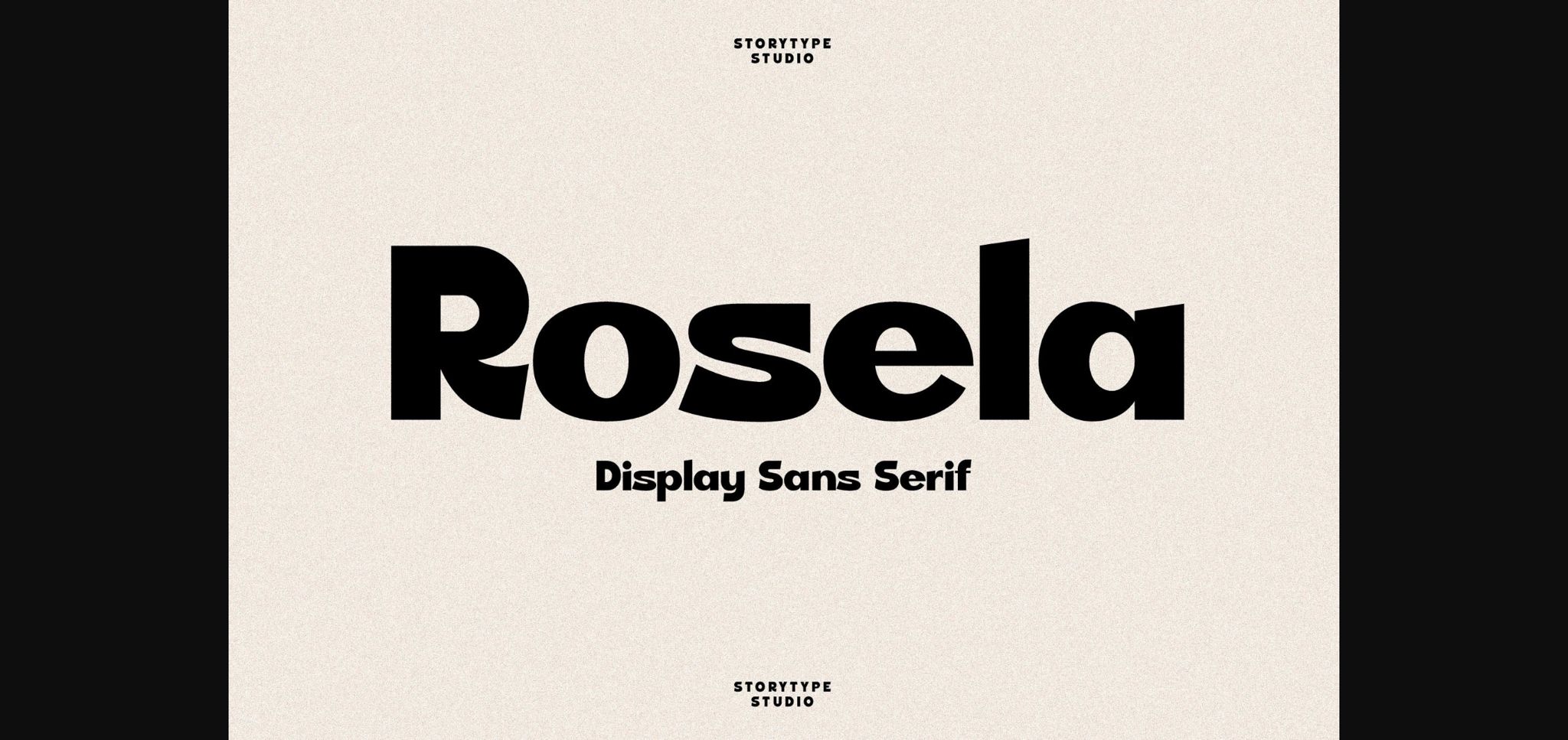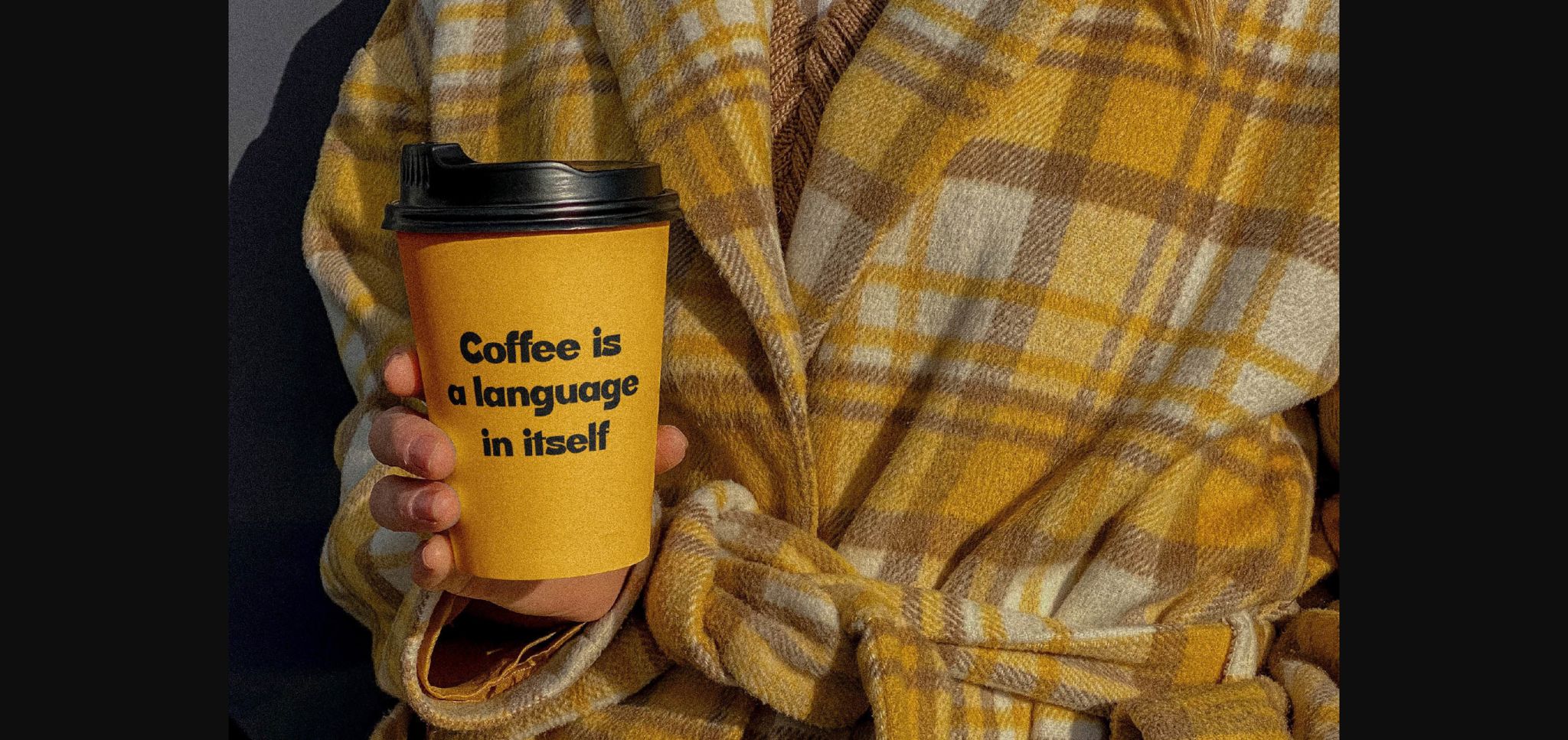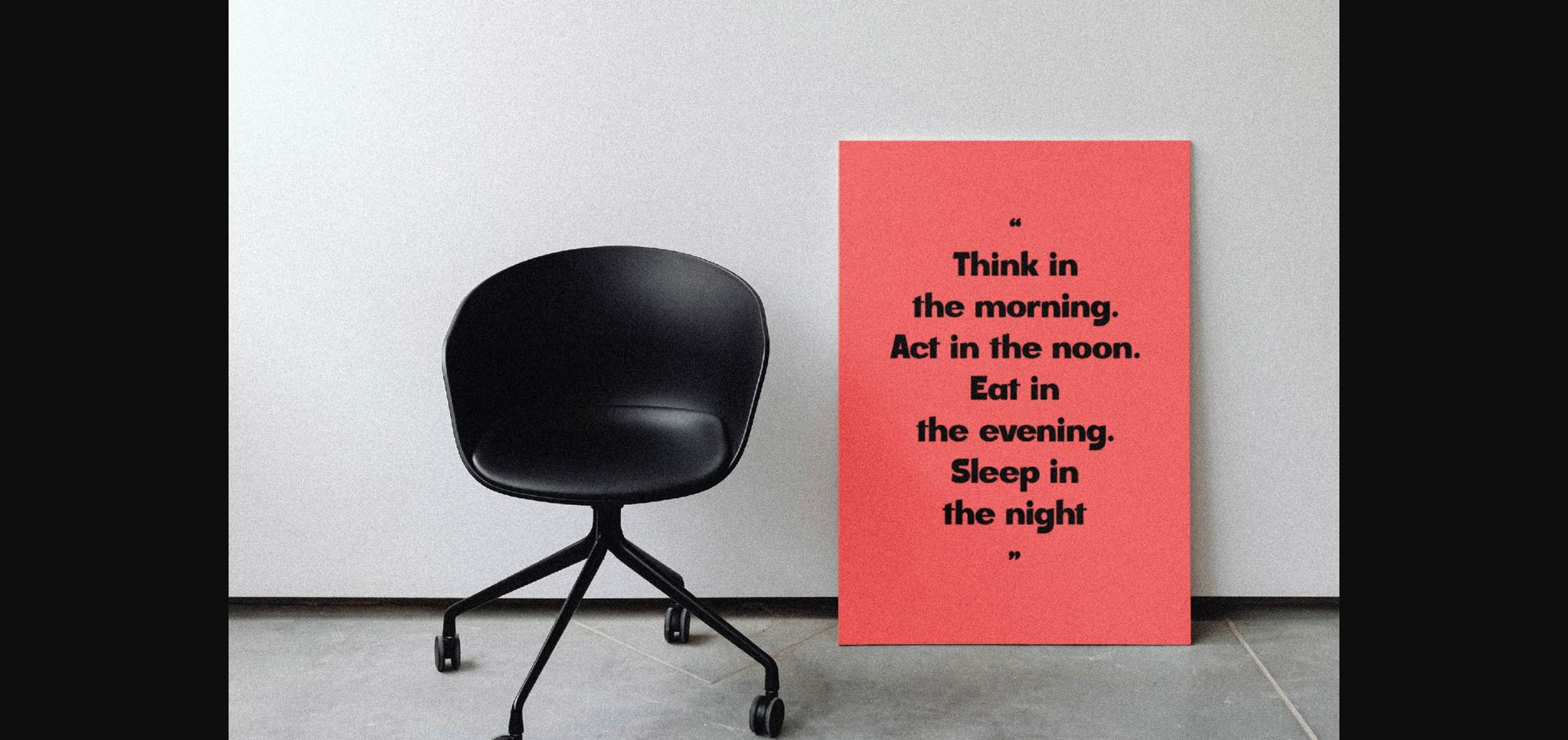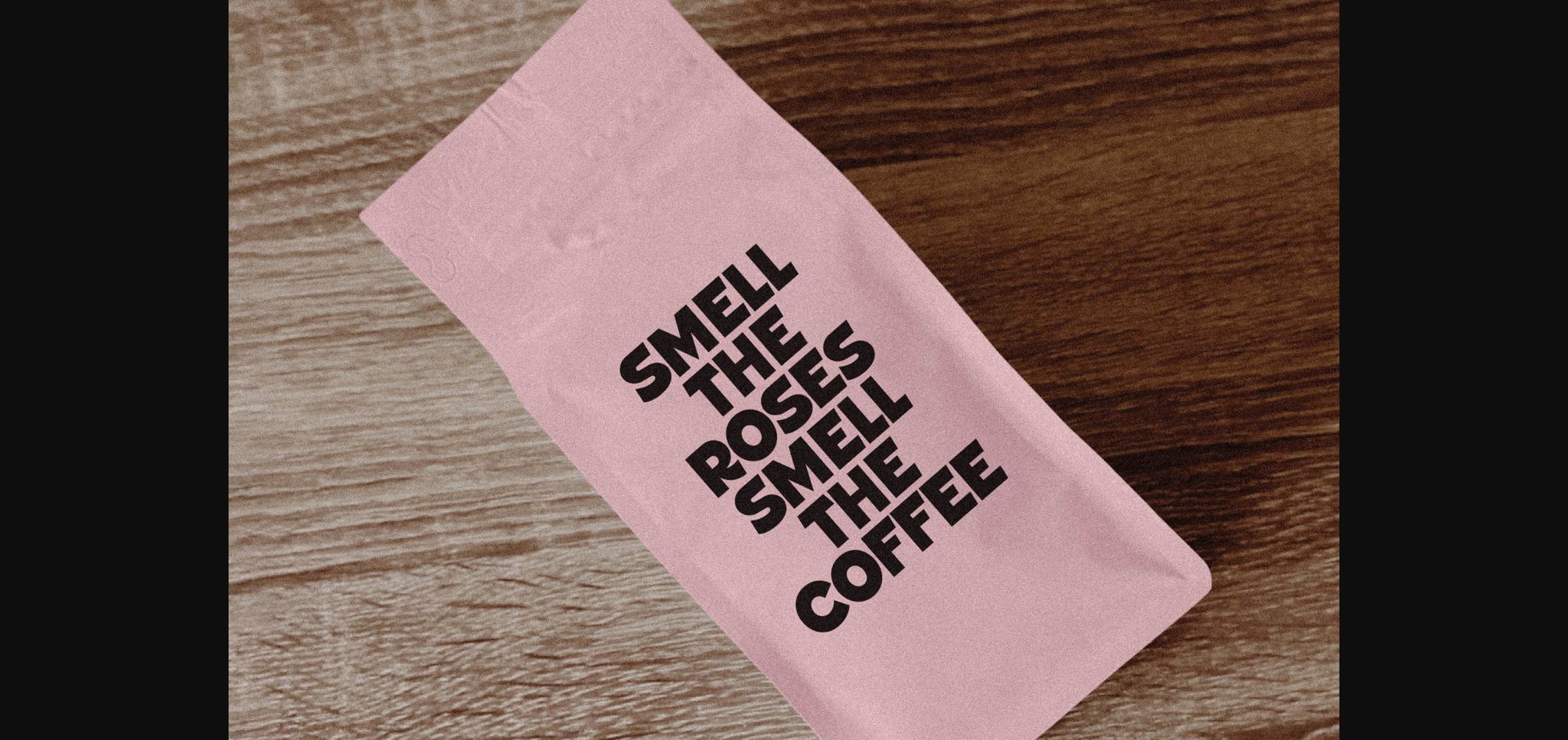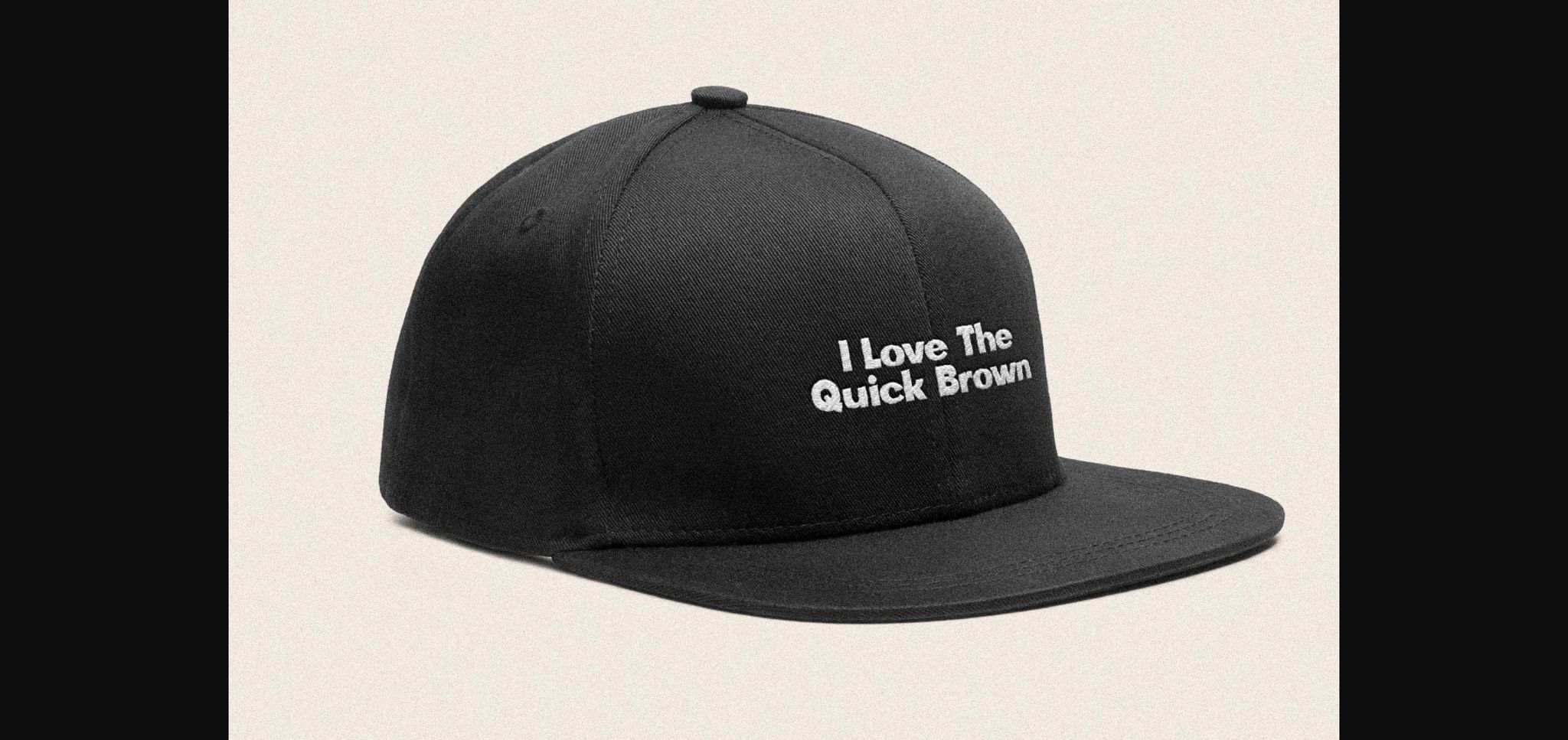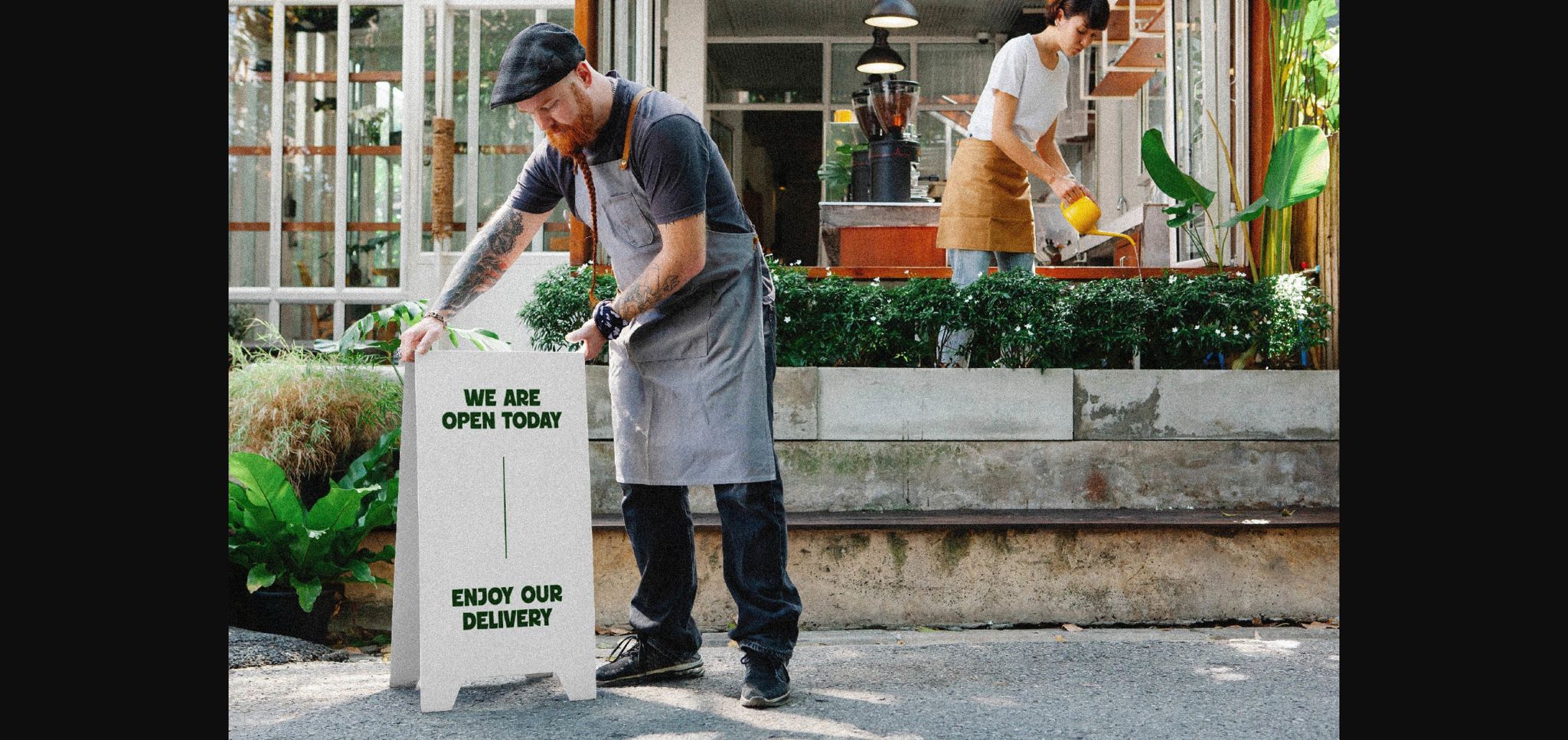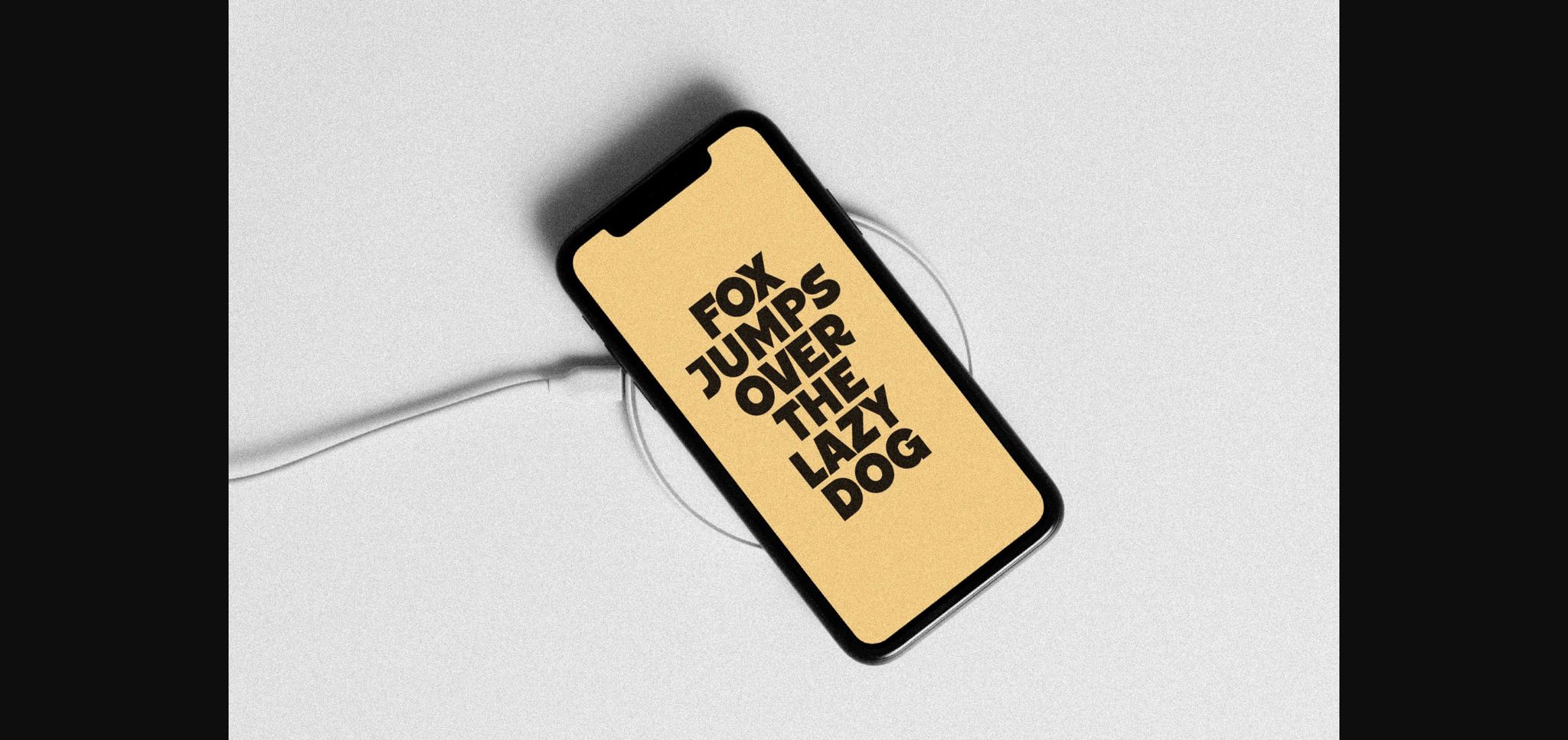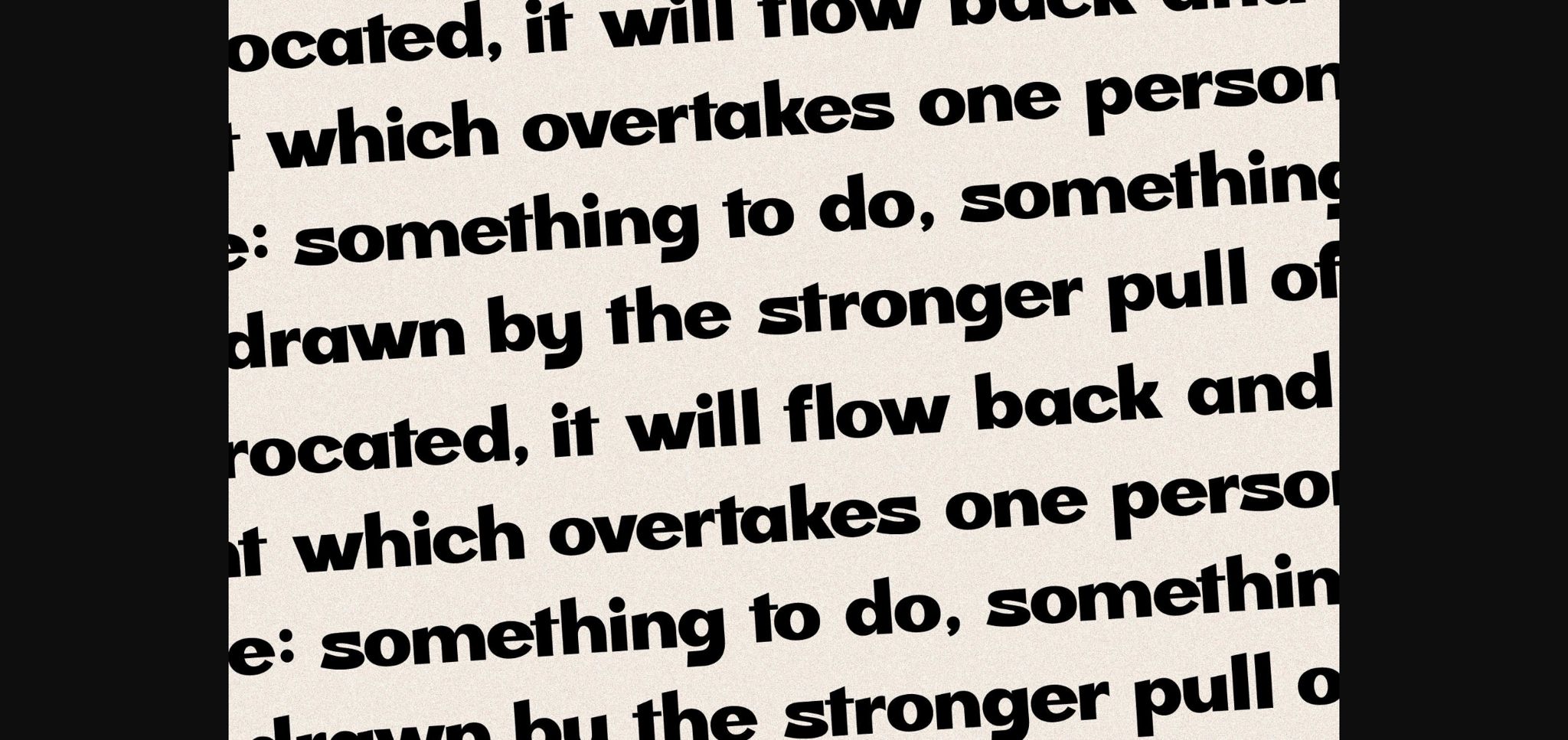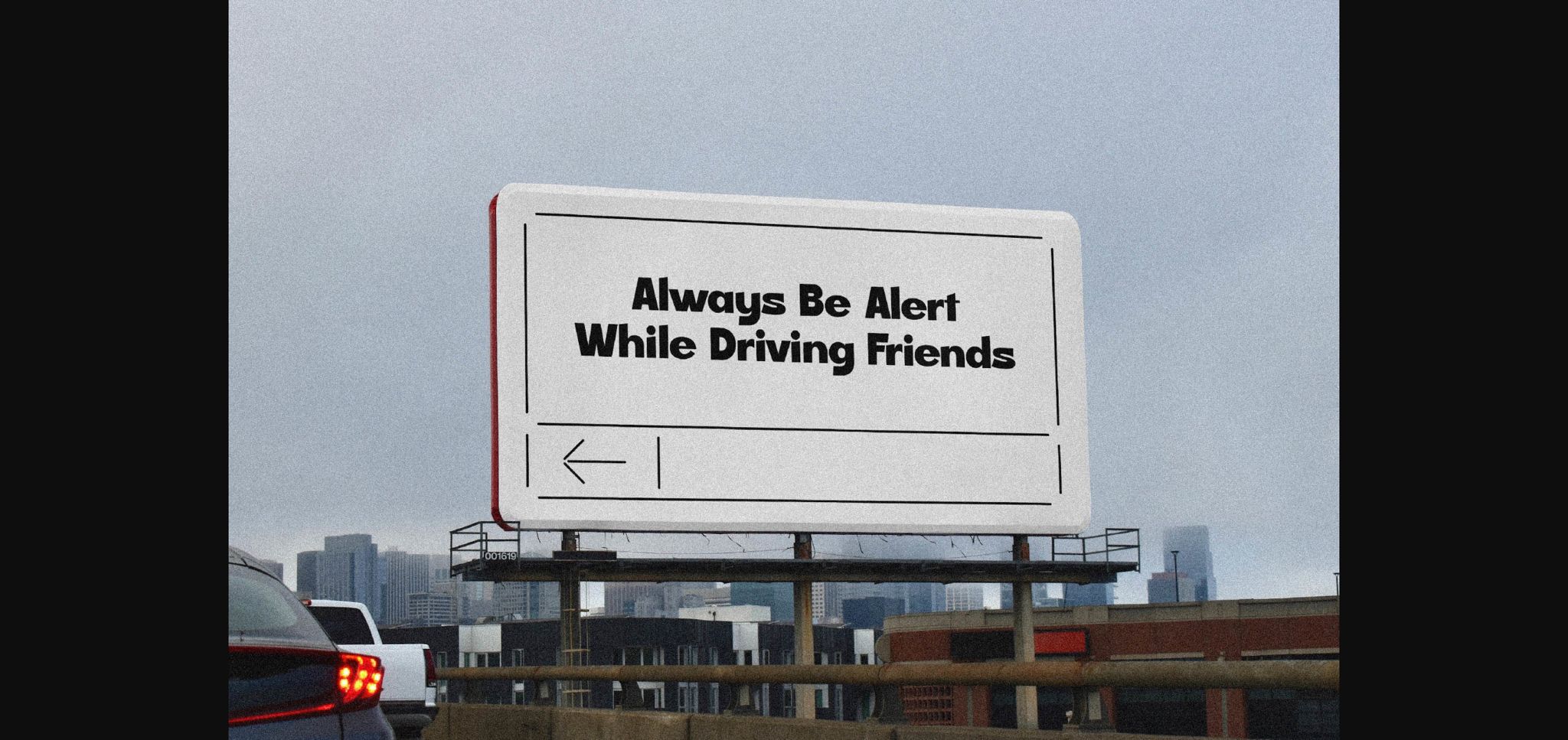
Rosela Font
About Rosela Font
Rosela is a modern and classic sans serif font with a unique style and modern look.
This typeface is perfect for an elegant & luxury logo, book or movie title design, fashion brand, magazine, clothes, lettering, quotes, and so much more.